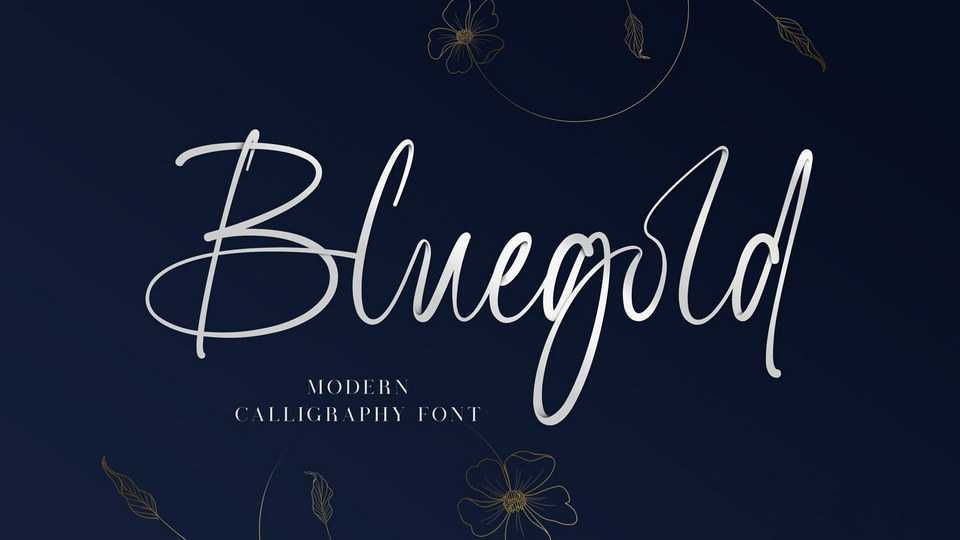
Download Bluegold font, a beautiful modern calligraphy script with a stylish dynamic flow. Bluegold font is perfect for many different project such as logos, branding, invitation, stationery, wedding designs, social media, photography watermark, special events or anything.
Designer: Lemonthe